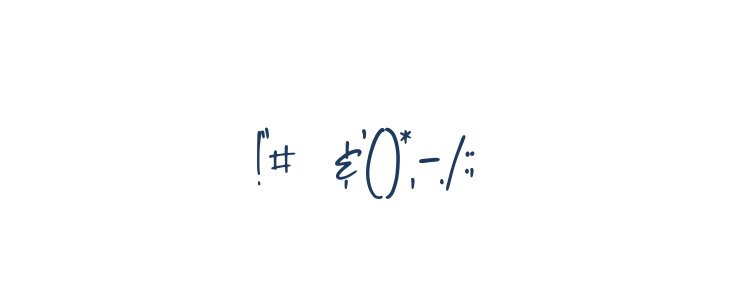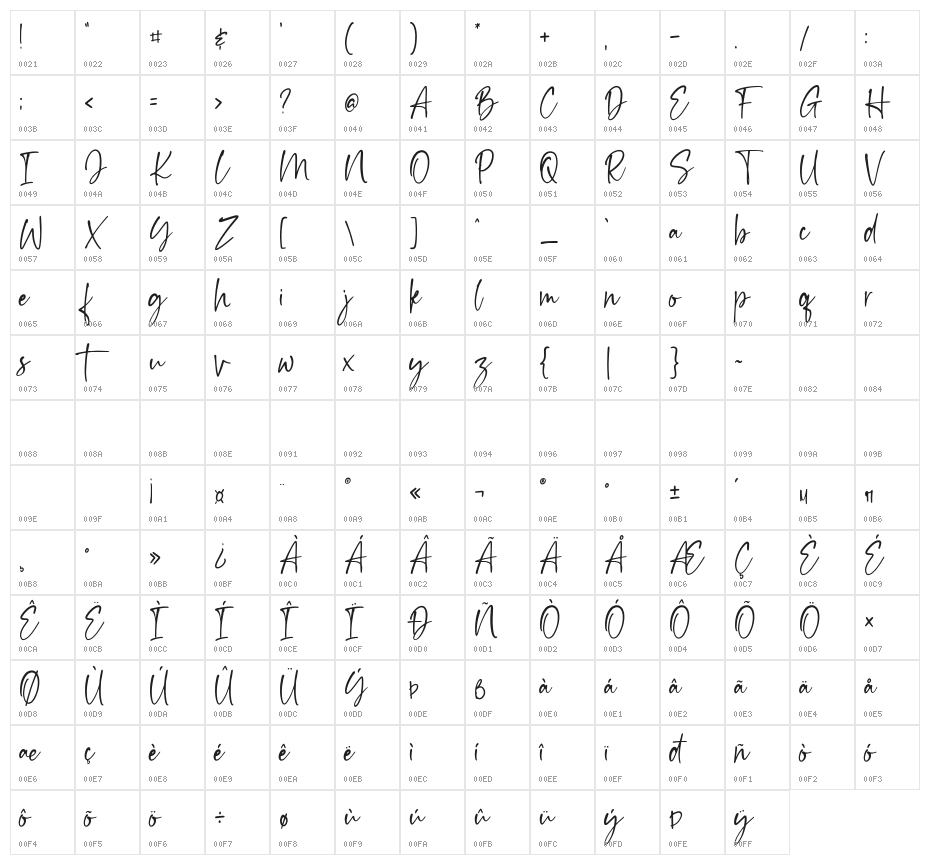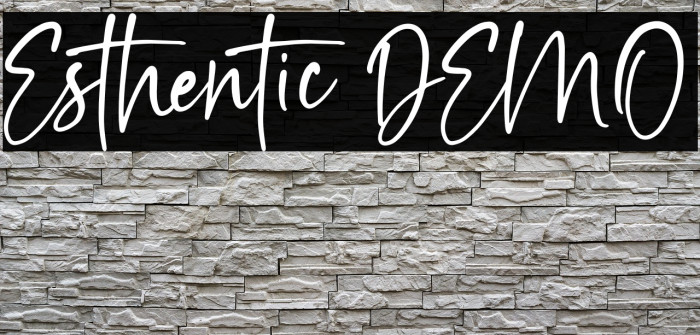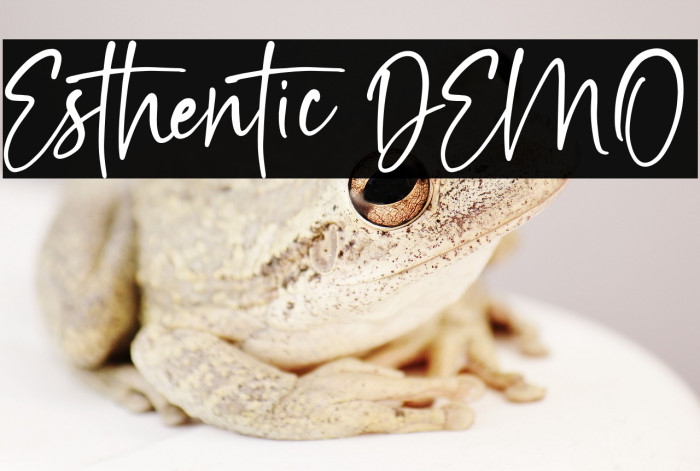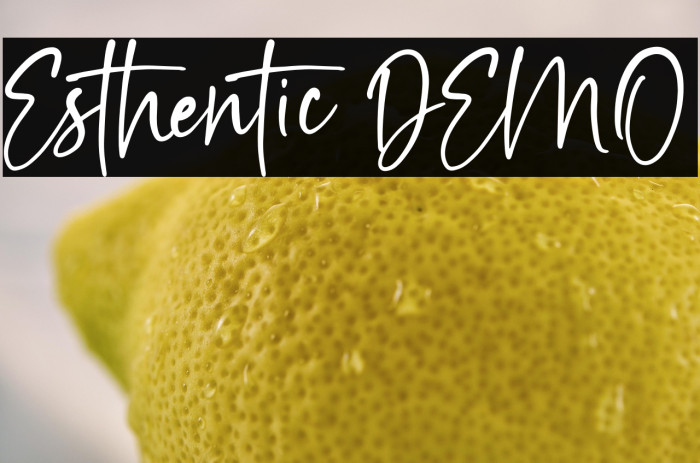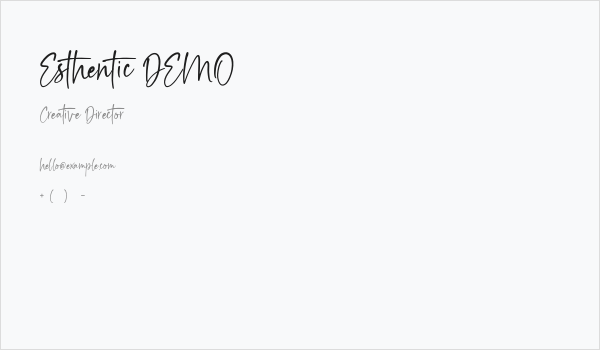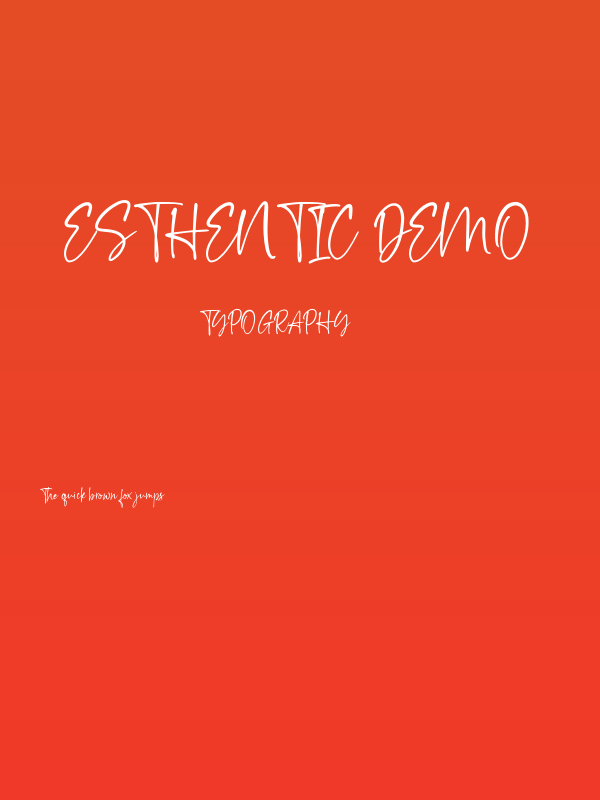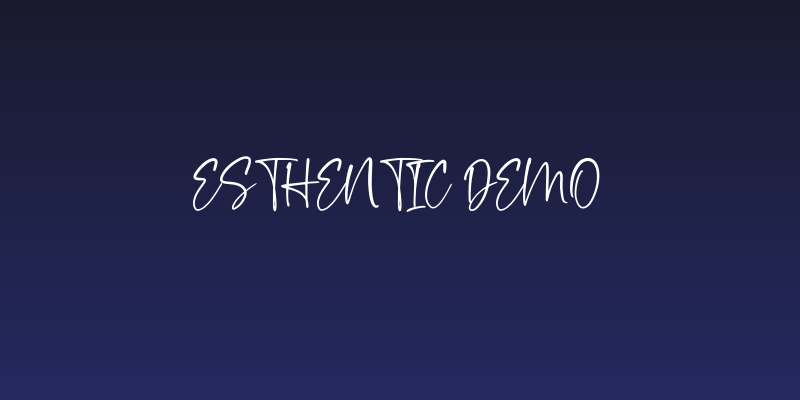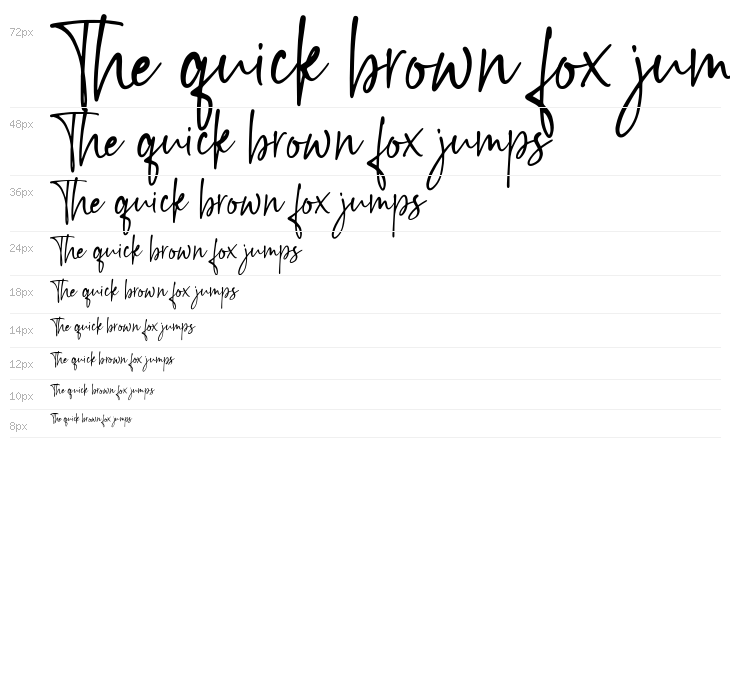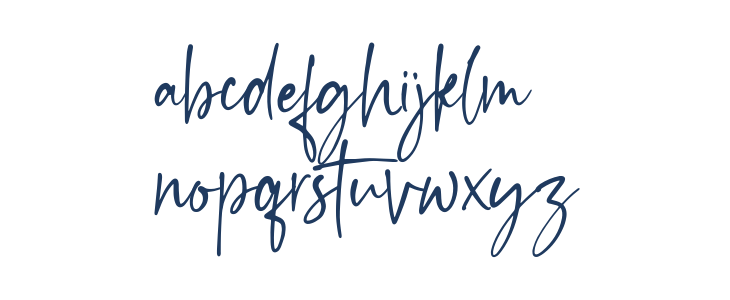
Esthentic DEMO Font
Esthentic DEMO Description
This font features a lively and dynamic handwritten style, characterized by its fluid and natural strokes. The letters are slightly slanted, giving a sense of motion and energy. The uppercase and lowercase letters maintain a consistent style, with a playful yet elegant appearance. The strokes vary in thickness, adding a touch of personality and charm. Special characters and numbers are seamlessly integrated, maintaining the overall aesthetic. This font is perfect for projects that require a personal touch, such as invitations, greeting cards, and creative branding.